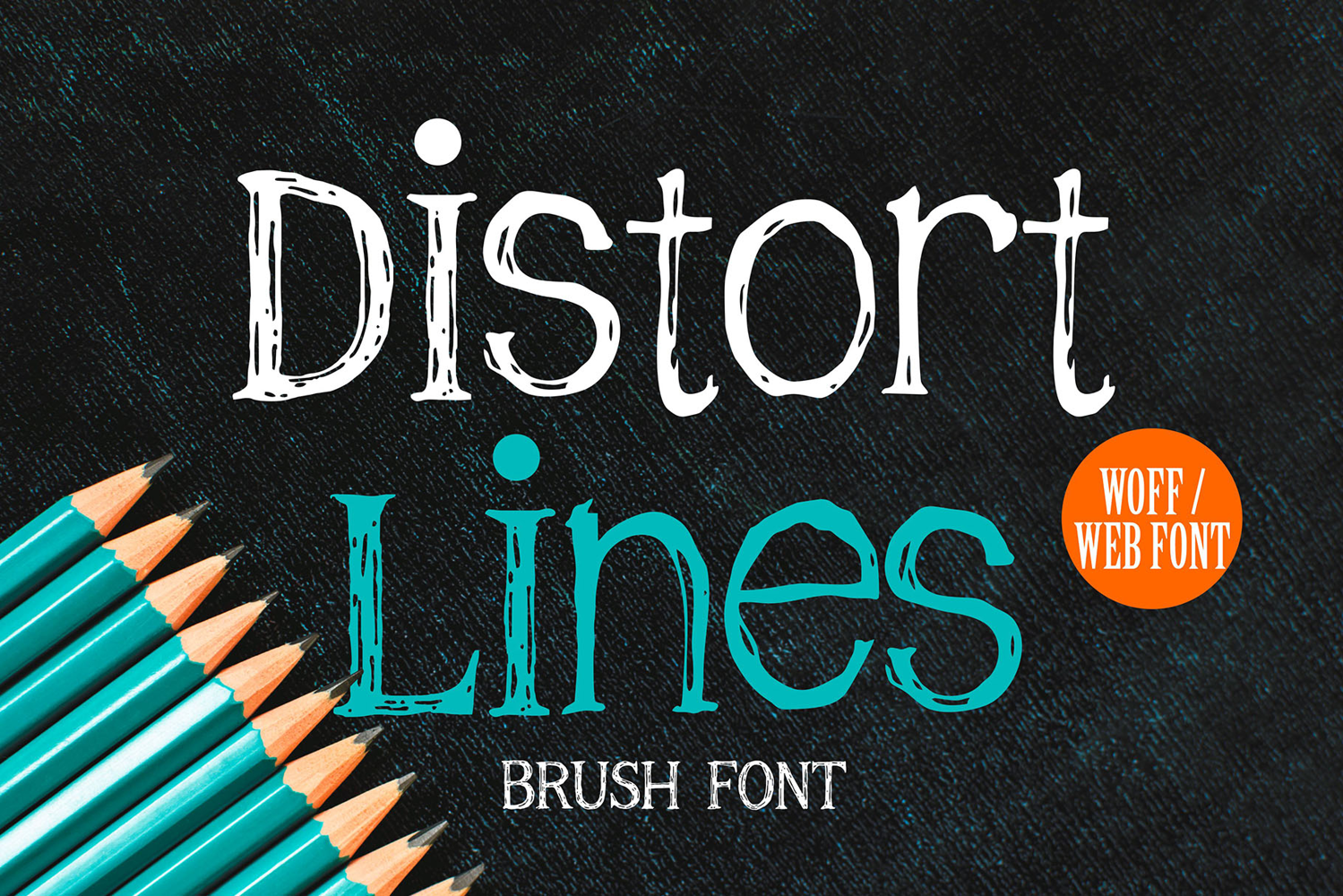
Distort Lines | Brush Style Webfont
Distort Lines Webfont brings the energy of brush strokes to your digital projects. Designed for web use, this font delivers bold and handcrafted character to websites, social media graphics, web banners, and other online displays. The distorted brush texture adds personality while maintaining excellent readability on various screen sizes. Whether used for headlines or standout typography, this webfont creates an eye-catching and artistic presence.